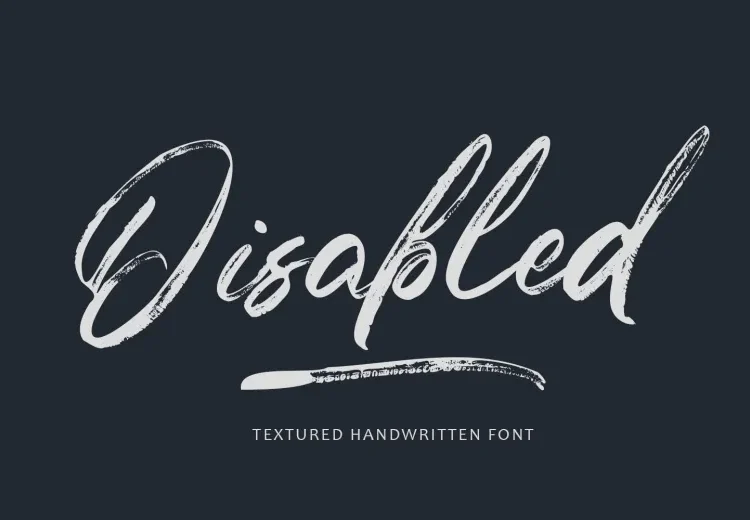
Disabled Font
Disabled is a unique handwritten brush script font that combines authentic craftsmanship with a distinctive textured appearance. Each letter in Disabled is designed to capture the essence of rough brush strokes, adding a rustic, tactile quality that sets it apart from other fonts. This texture enhances the font’s character and depth, making it ideal for projects that seek to convey a sense of hand-crafted authenticity.
Whether used for branding, posters, or personal projects, Disabled brings an artisanal touch to your designs, infusing them with a genuine, organic feel. Its rustic charm and distinctiveness make it perfect for creating standout visuals that resonate with a handcrafted aesthetic.